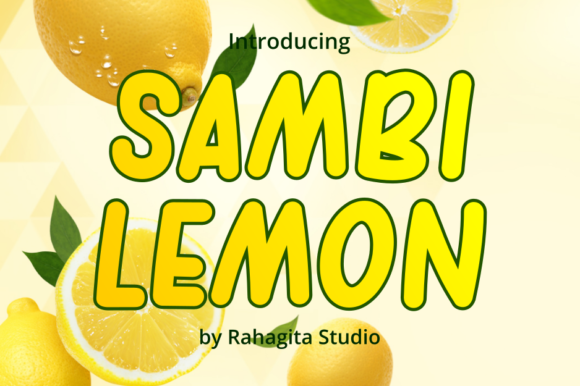
Indulge in a whimsical symphony of letters with Sambi Lemon, the display font that's sure to ignite your creativity and captivate your audience. This enchanting all-caps font exudes a playful charm that will breathe life into your designs.
Picture this: your website headlines dancing across the screen, commanding attention with their irresistible allure. Social media posts adorned with Sambi Lemon's playful characters, spreading joy and engagement like wildfire. Or, imagine your marketing materials bursting with personality, leaving a lasting impression on potential clients.
With Sambi Lemon, the possibilities are as boundless as your imagination. Whether you're a seasoned designer or just starting to explore the world of typography, this font will become your trusted companion, adding a touch of magic to every project you undertake.
Its playful and friendly nature is perfect for capturing the attention of younger audiences, making it an ideal choice for educational materials, children's books, or any project that seeks to evoke a sense of childlike wonder. But don't let its lighthearted demeanor fool you - Sambi Lemon is a versatile performer that can also add a touch of whimsy to invitations, greeting cards, or even corporate presentations.
The font's unique charm lies in its ability to add a personal touch to your creations. It's as if each letter has been carefully crafted with love and attention, giving your designs a handcrafted feel that will resonate with your audience.
So, embark on a delightful journey with Sambi Lemon, where every letter tells a story and every design becomes a masterpiece. Let your imagination soar and watch as your projects transform into captivating works of art that will leave an unforgettable mark on the world.